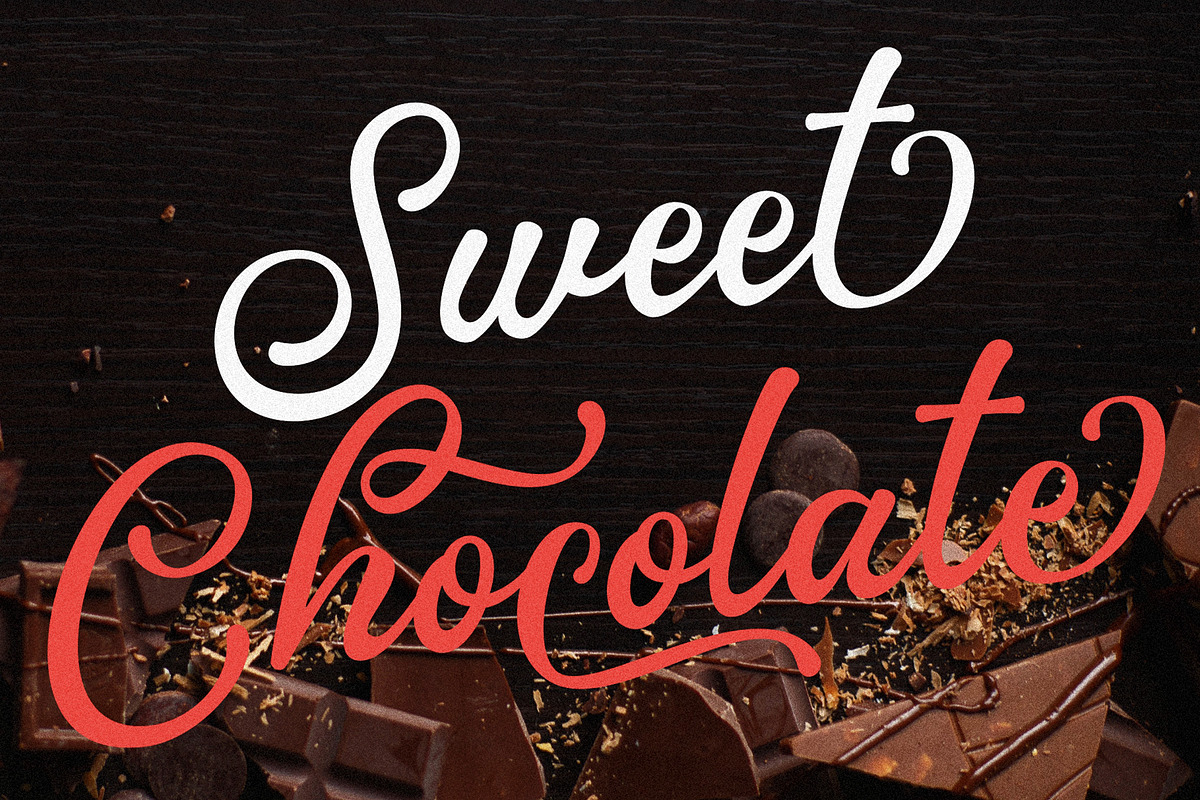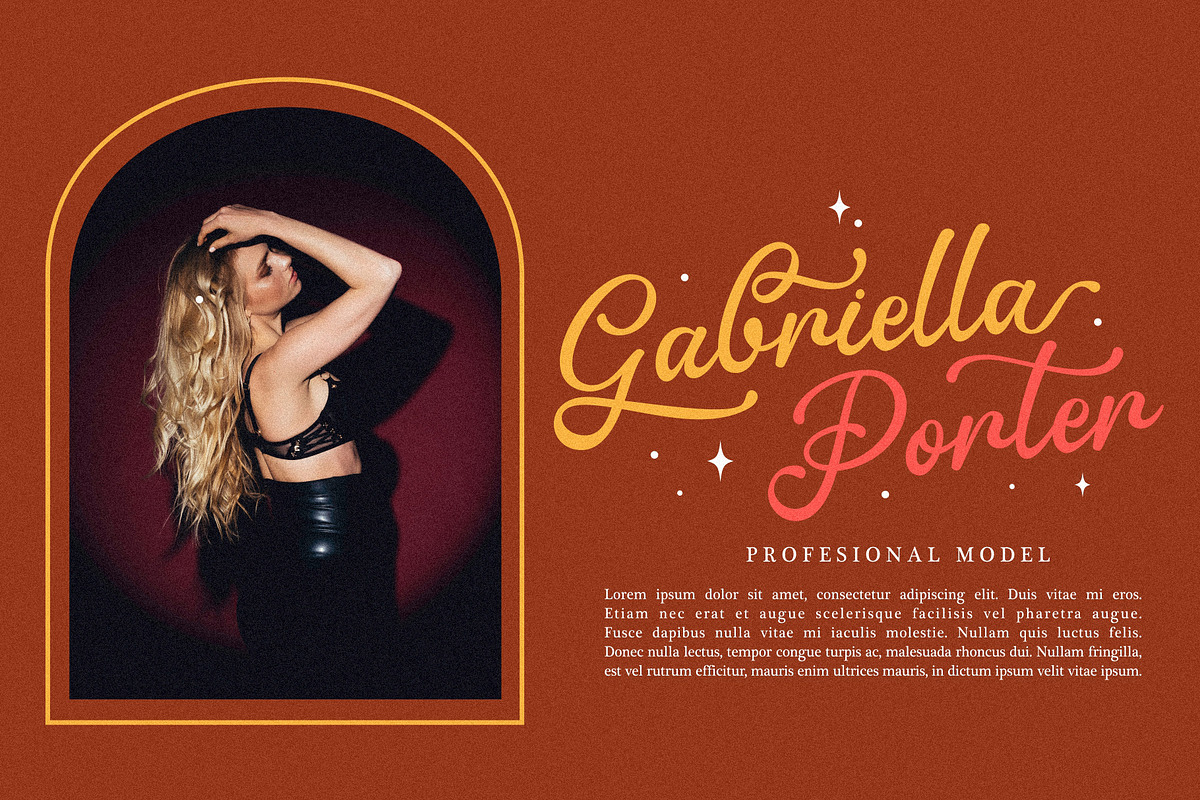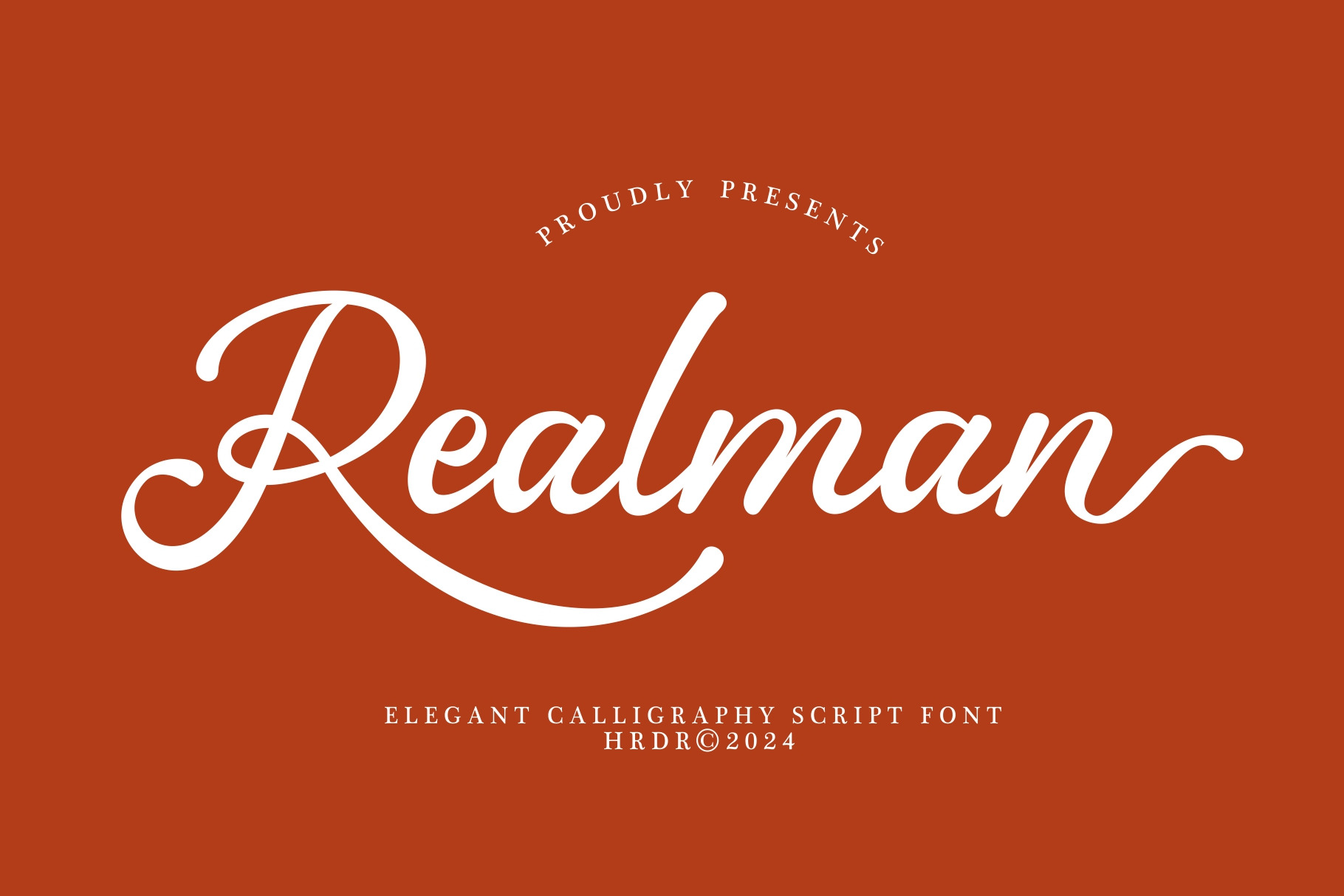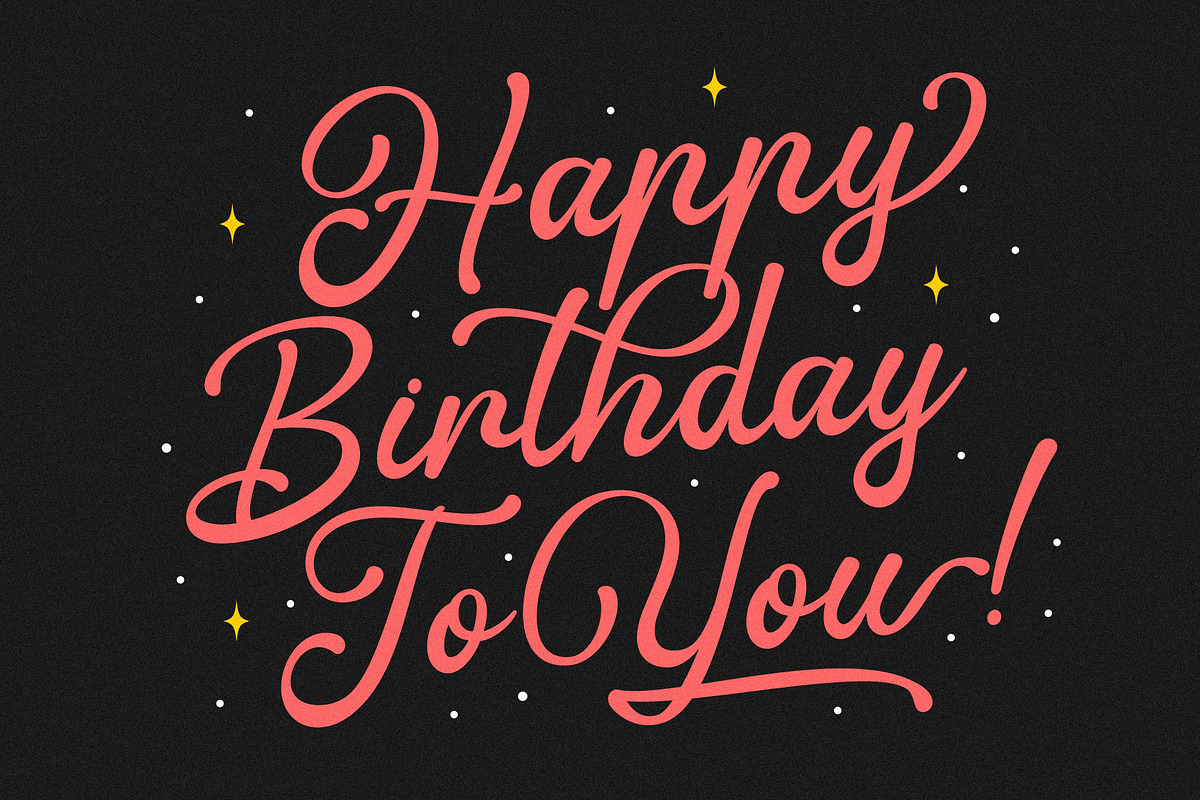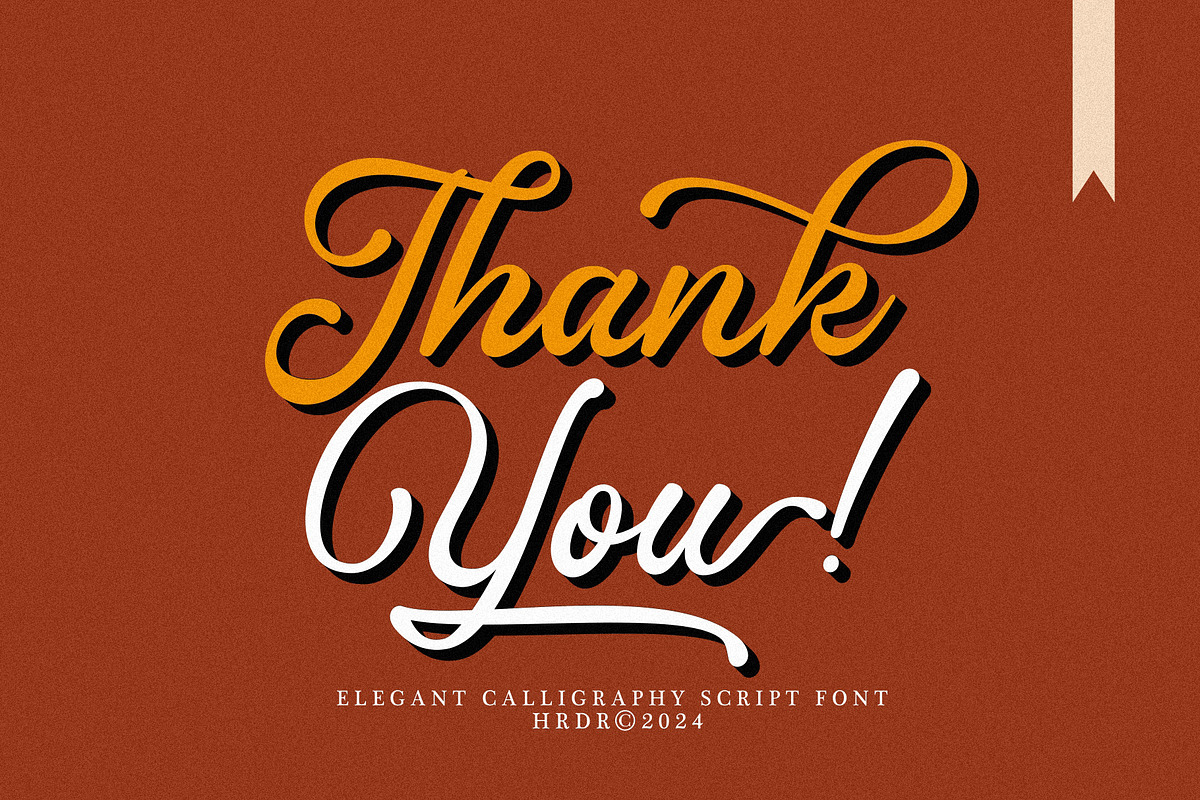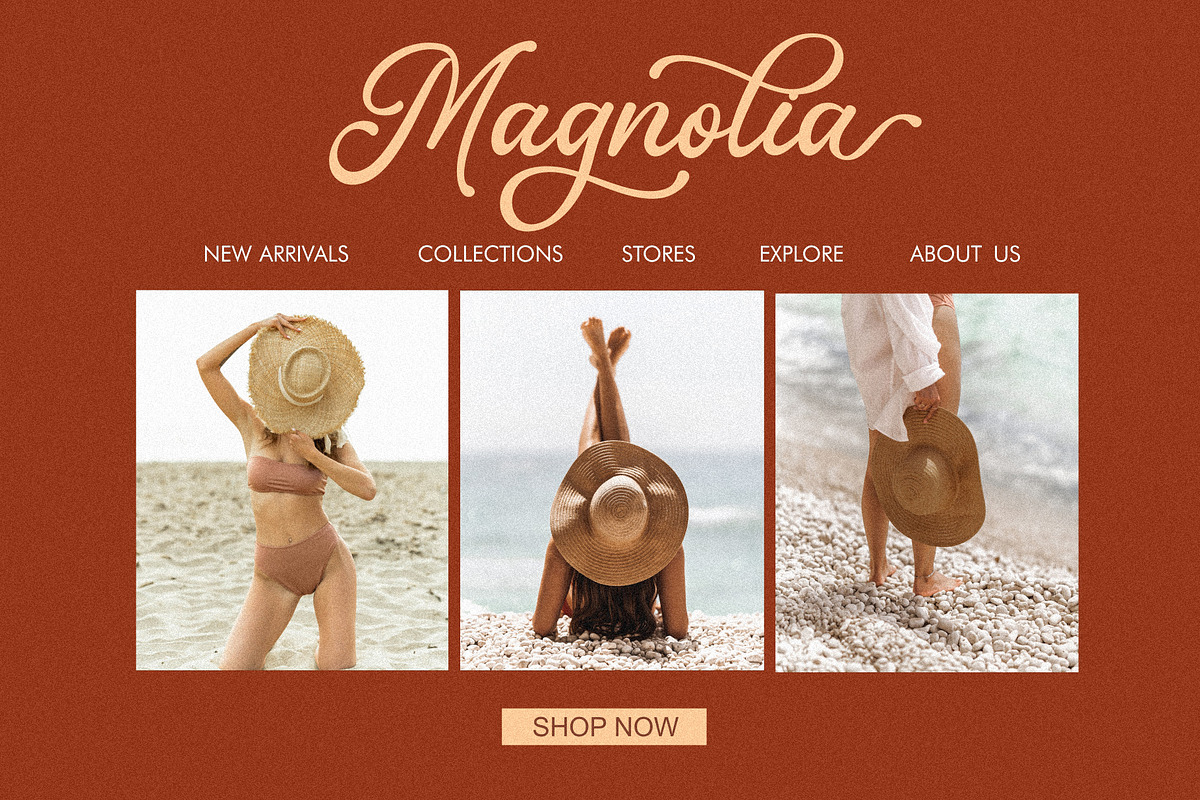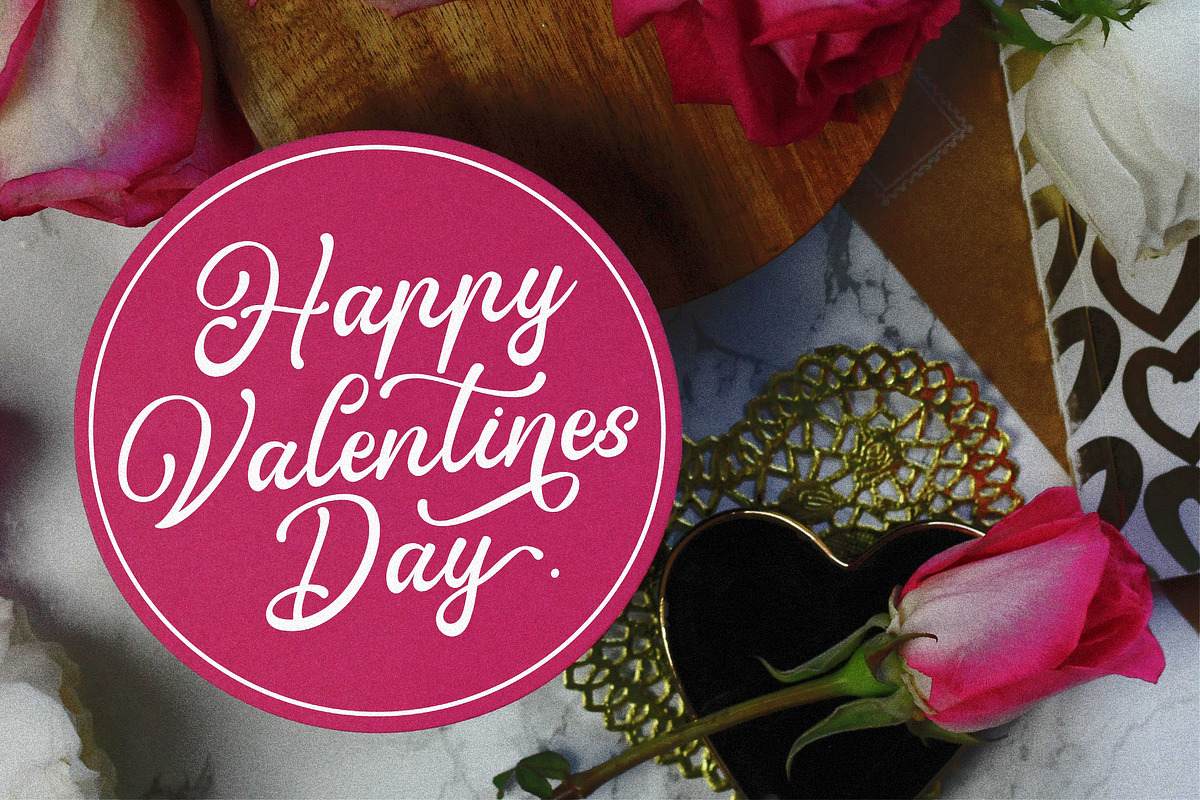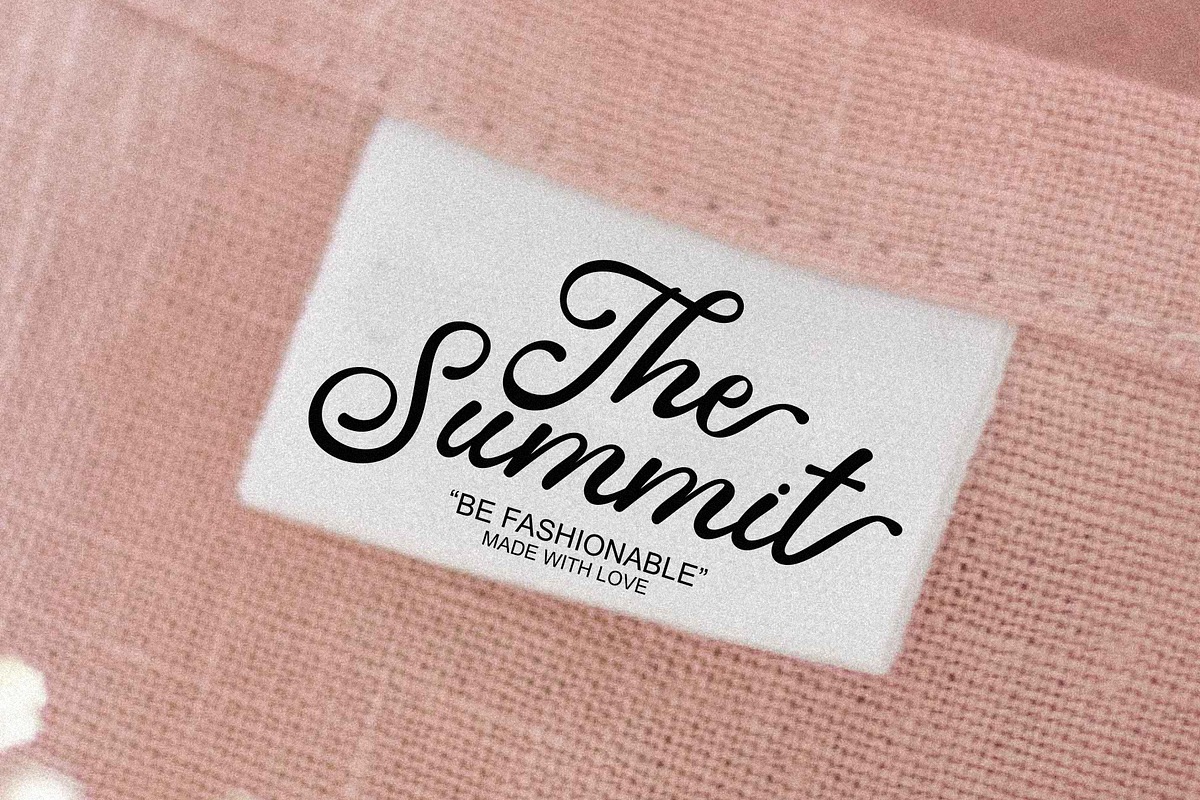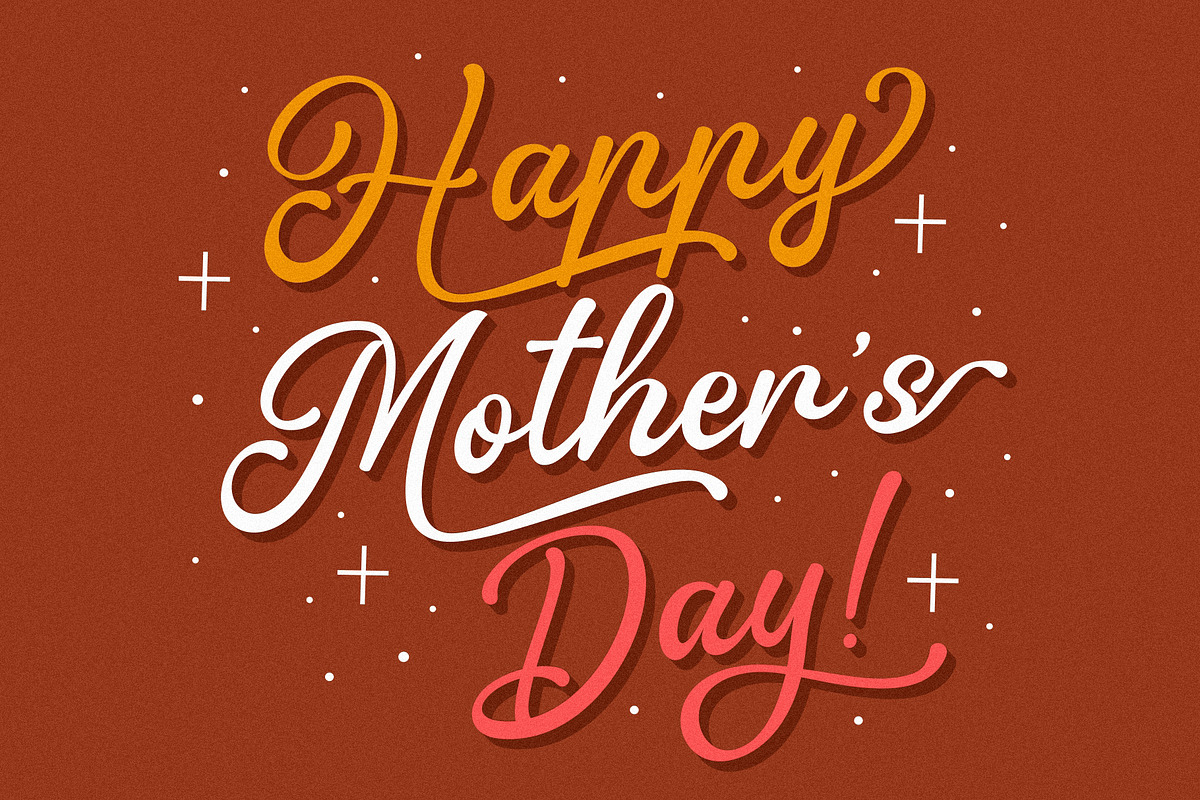
Realman - Elegant Script Font
Realman Font is a Elegant calligraphy Script Font, It's perfect for branding, wedding invitations, photography, Neon Sign, bloggers, logos, greeting cards, Logo, Quotes and more.
- numeric & Multilingual support
- Stylistic Alternates with (Ss01, Ss02, Ss03, Ss04, Ss05, Ss06 , Swashes and Ligatures)